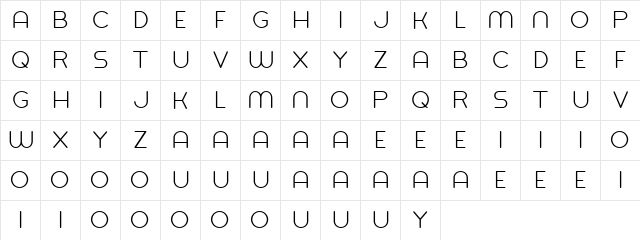
Balat Regular
Design Context for Balat Typeface
Balat offers clean, dependable letterforms without strong stylistic allegiance, making it a practical choice for designers who need flexibility.
Pro Tip: Use Balat in both headline and body roles to test its range before committing to a single application.